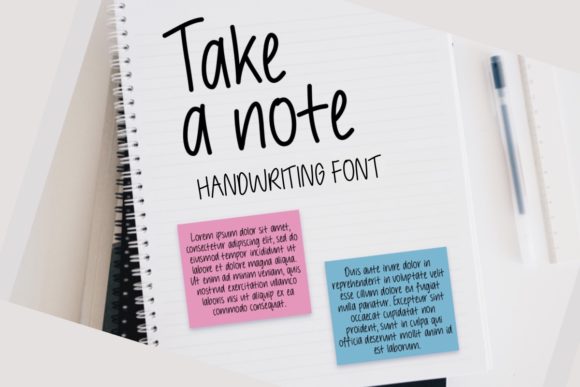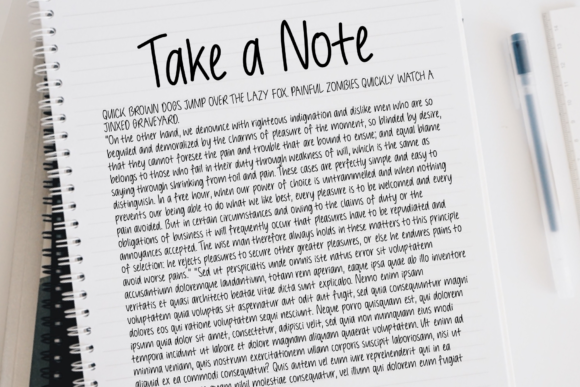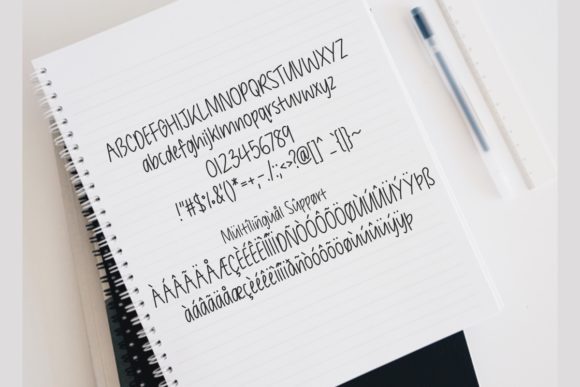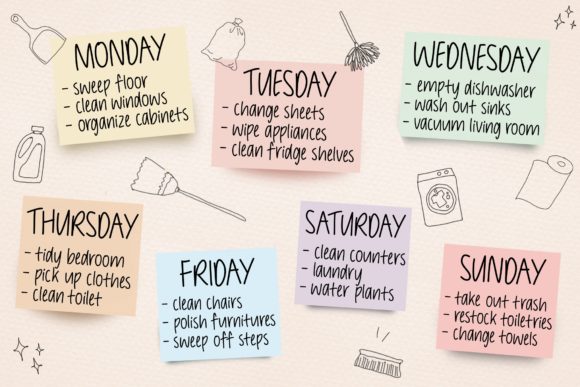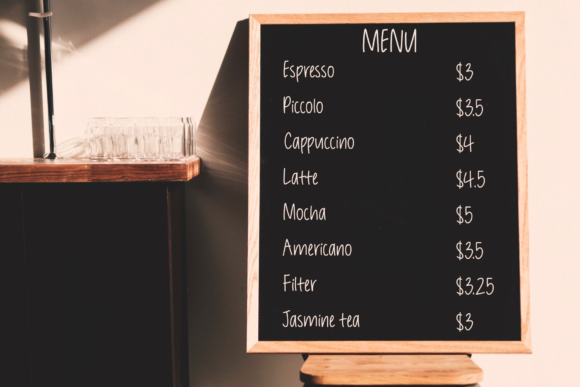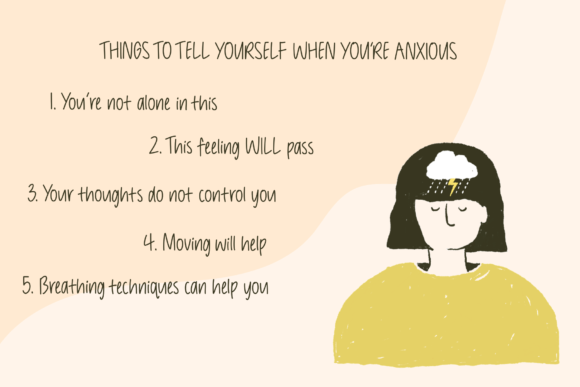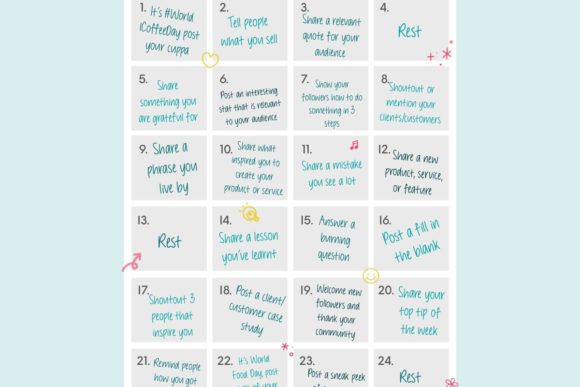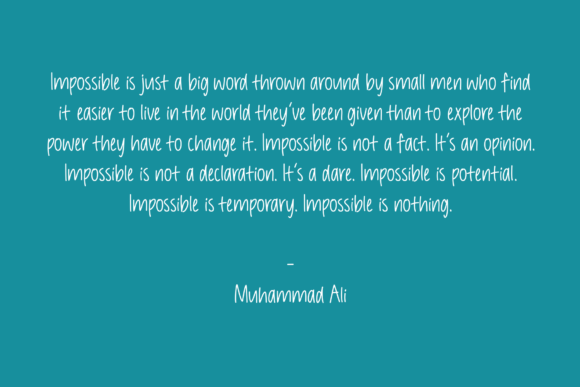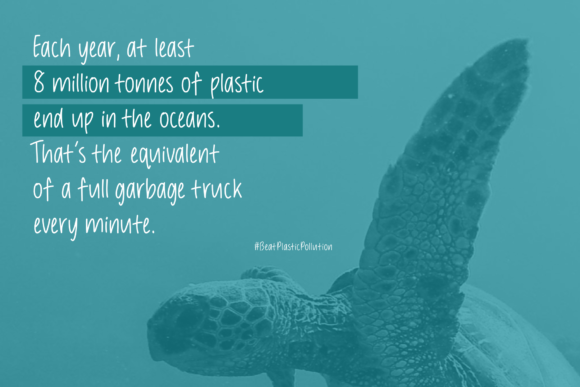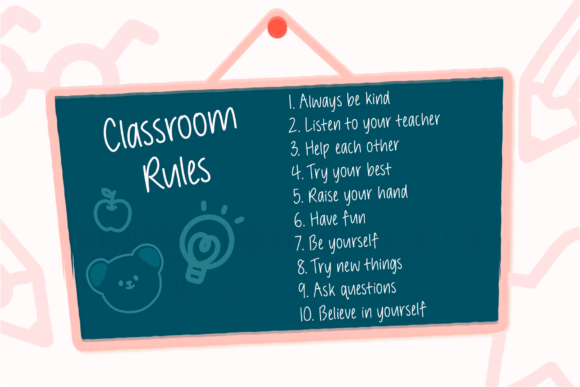
Take a Note Font
About Take a Note Font
Take a Note is a neat and simple handwritten font. Whether you’re looking for fonts for Instagram or calligraphy scripts for DIY projects, this font will turn any creative idea into a true piece of art!